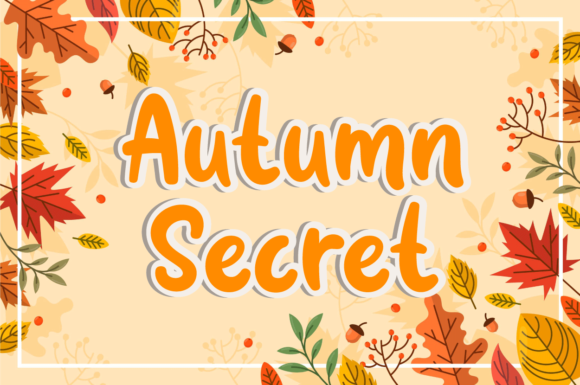
Behold, the Autumn Secret Font, an enchanting script that dances across your screen, captivating your senses! A creation of Soegih Artwork, this font is like an autumn breeze, whispering secrets of love and joy.
With its playful quirks and handwritten style, Autumn Secret Font exudes a friendly charm, making it adaptable to an array of projects. Send heartfelt thanks on personalized thank you cards, let your words shine on meaningful quotes, and craft heartfelt greeting cards that carry your warmest wishes. Logos and business cards will radiate a touch of artistry, leaving a lasting impression on clients and customers.
The beauty of Autumn Secret Font lies in its versatility. It seamlessly blends into wedding invitations, adding a touch of whimsy and romance. Its artistic flair transforms any design, elevating it with a unique charm that demands attention.
Imagine your words flowing effortlessly in the Autumn Secret Font, creating a visual masterpiece that captures the essence of your message. Its graceful curves and elegant strokes weave a tale of heartfelt emotions, making every word a work of art.
So, embrace the Autumn Secret Font today and embark on a creative journey like never before. Let your designs bloom with originality and captivate your audience with each stroke. Experience the magic of Autumn Secret Font and let your creations speak volumes, leaving an unforgettable impression on the world.